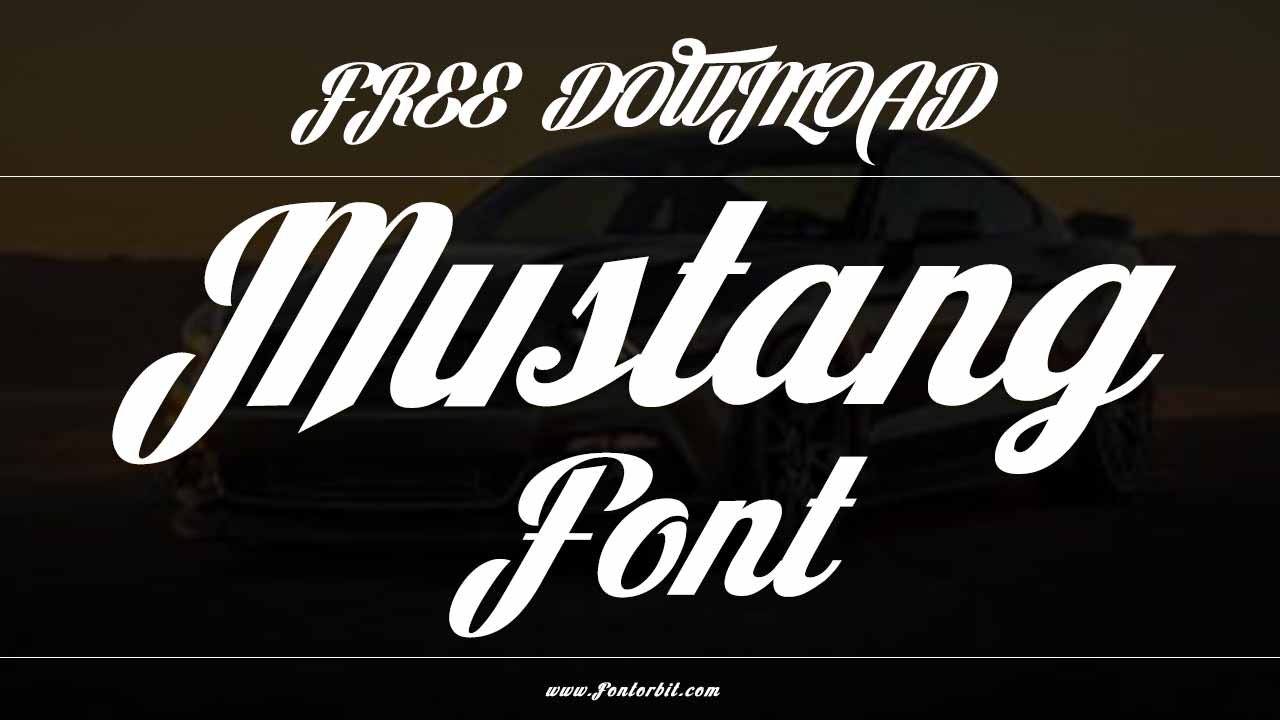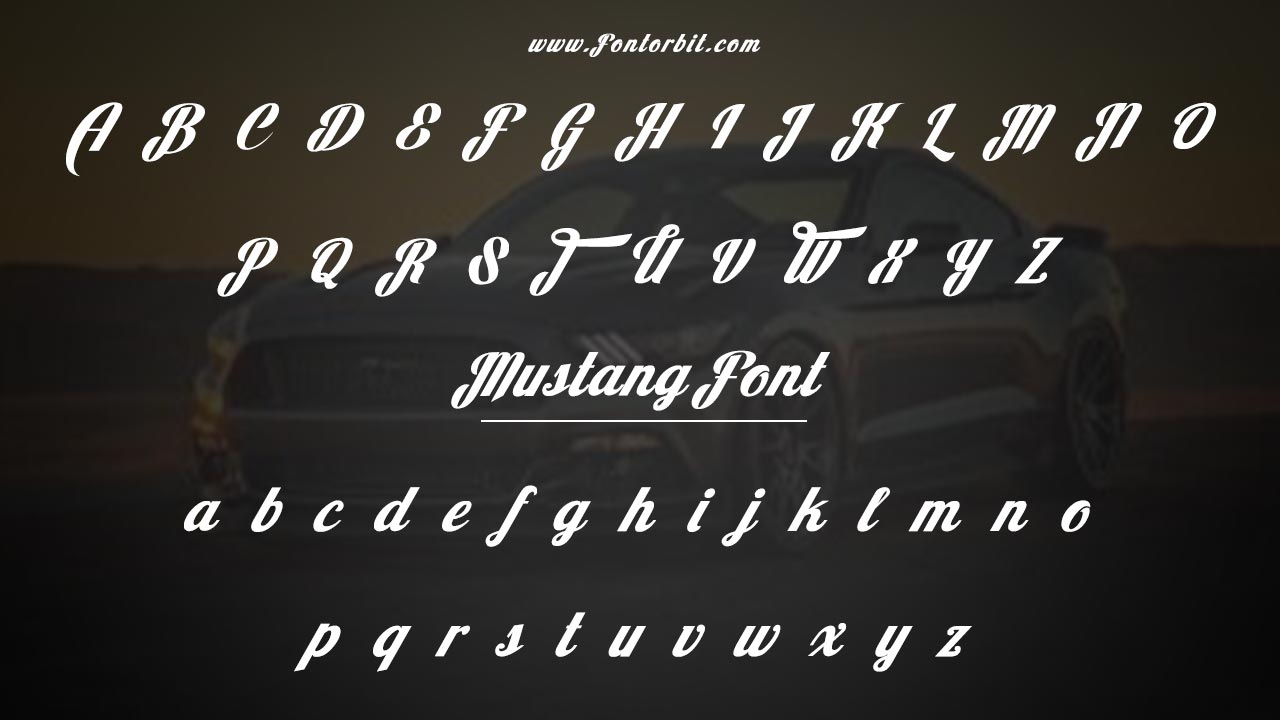
The Mustang Font is a powerful brush script font that blends energy and elegance. Designed by Robert Arnow, it combines the smooth flow of calligraphy fonts with the edgy appeal of modern fonts, making it ideal for branding, advertising, posters, and logo design.
Whether you’re working on social media text, designing a business platform, or creating an ad campaign for targeted advertising, Mustang brings a unique handwritten touch to your work.
Mustang Font Overview
| Feature | Details |
| Designer | Robert Arnow |
| Style | Brush Script, Handwritten |
| Font Family Includes | Mustang Regular |
Where To Use Mustang Font
This handwritten font is perfect for various design projects:
- Logos & Branding – Great for business platforms and identity design.
- Advertising & Marketing – Eye-catching in relevant adverts and promotions.
- Social Media Graphics – Stylish choice for social media text and content.
- Posters & Banners – Ideal for modern designs that need a bold look.
- Vintage & Retro-Themed Projects – Complements restored 1967 Mustang branding.
1.Does Mustang Font Support Alternate Characters?
Yes, it includes ligature support and alternate characters for customization.
2.Is Mustang Font Suitable For Logo Design?
Absolutely! Its handwritten script style is perfect for branding and logo design.
3.What Makes Mustang Font Unique?
It combines vintage, retro, and modern fonts, creating a bold, expressive design.
4.Does Mustang Font Support Multiple Languages?
Yes, it includes an extensive character map for different category headings.